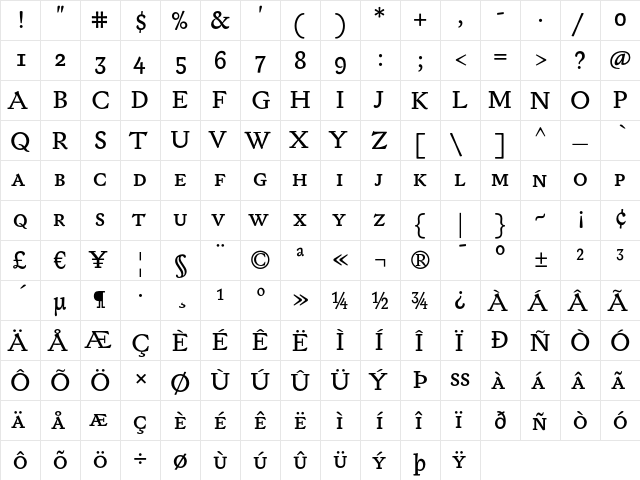
Lexon SC + OSF Regular
Design Context for Lexon SC + OSF Typeface
Lexon SC + OSF offers clean, dependable letterforms without strong stylistic allegiance, making it a practical choice for designers who need flexibility.